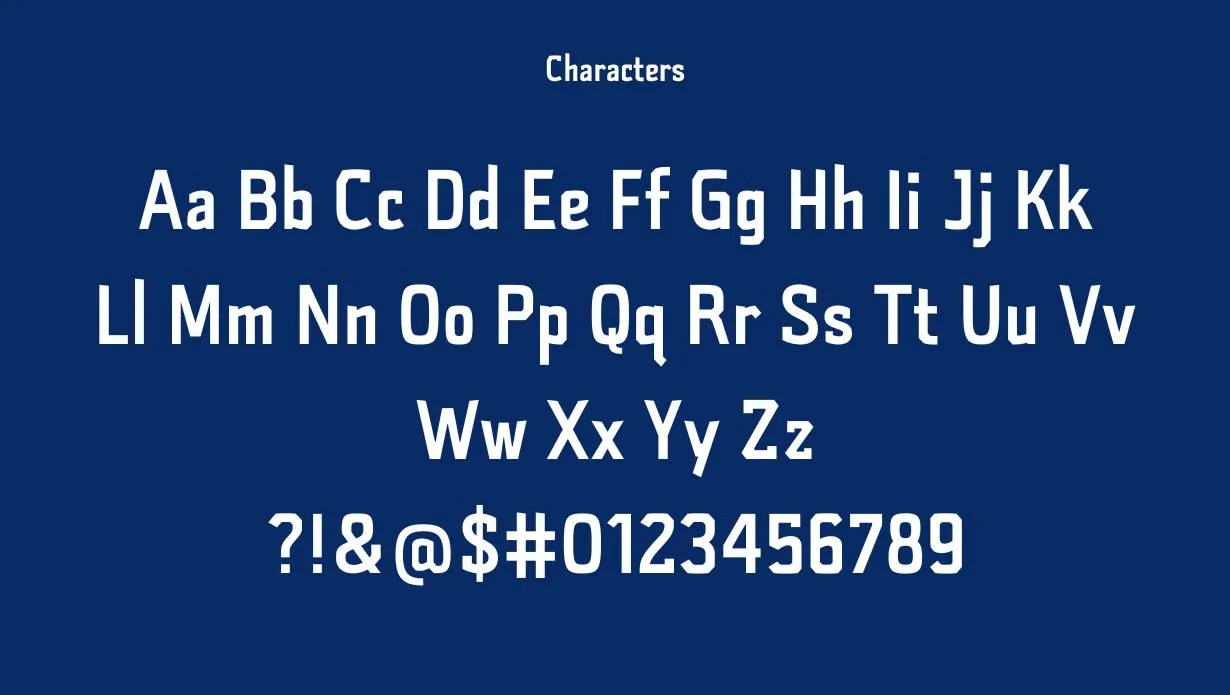
Beepo Typeface is a bold and modern font designed for maximum impact. Its geometric shapes and strong letterforms make it ideal for headlines, posters, and branding materials where a commanding and contemporary presence is needed.
Beepo Typeface’s purpose is to convey strength and modernity, making it suitable for projects that require a bold and edgy typeface to create visual impact and capture attention.